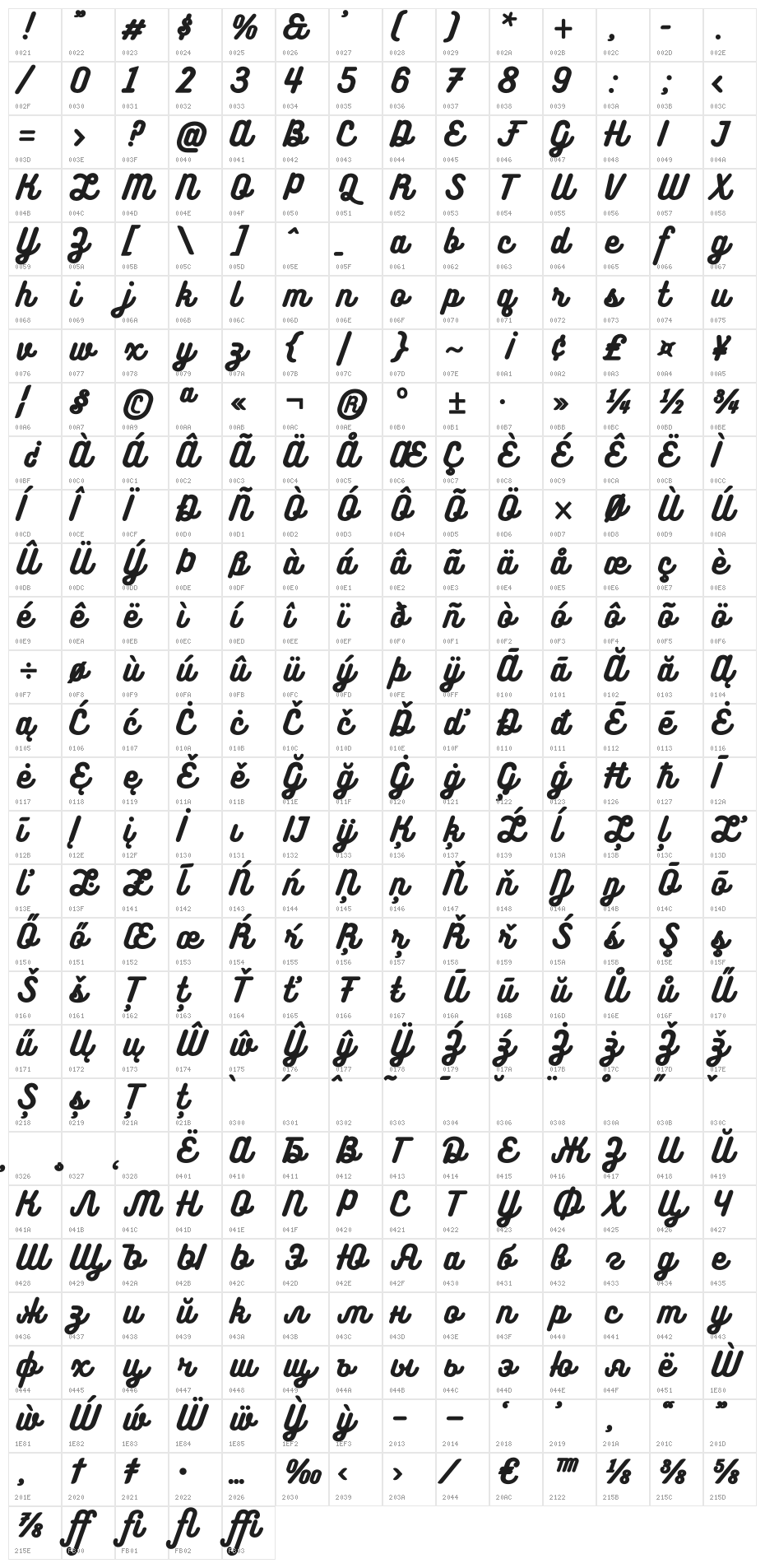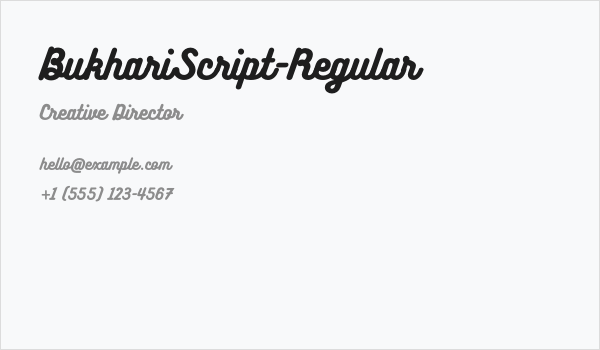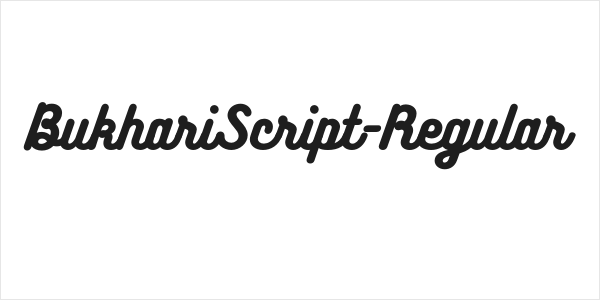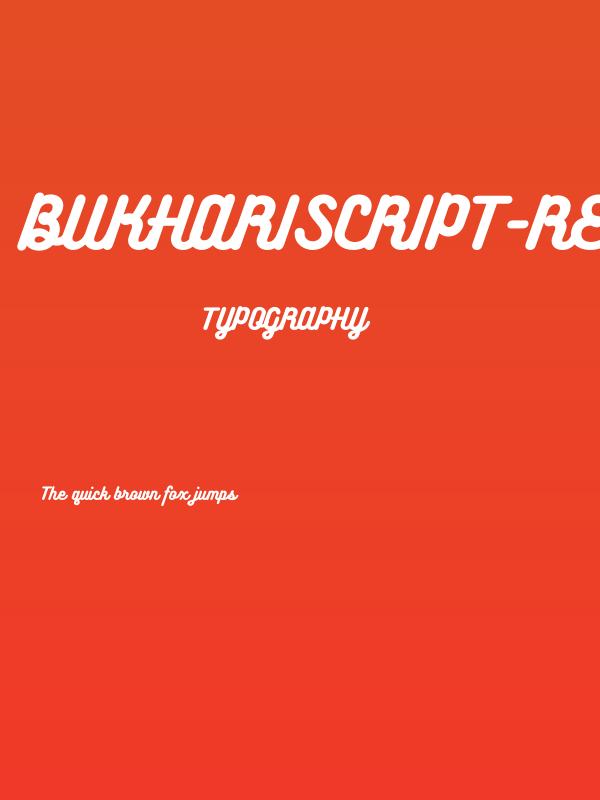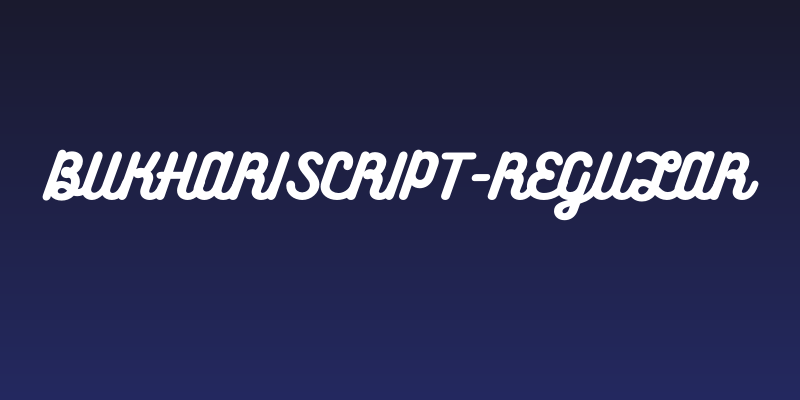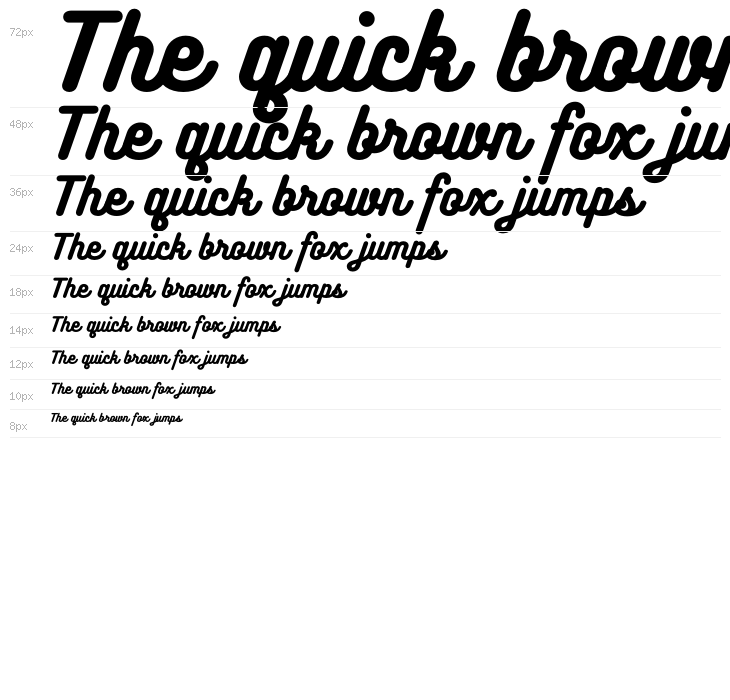
BukhariScript-Regular Font
BukhariScript-Regular Description
This font features a bold, flowing script style that mimics the fluidity of handwriting. The characters are interconnected, creating a seamless and elegant appearance. The strokes are thick and consistent, providing a strong visual impact. The uppercase letters maintain a uniform height, while the lowercase letters exhibit a slight slant, enhancing the cursive effect. Numerals and special characters are crafted with the same attention to detail, ensuring a cohesive look across all elements. The overall design is both playful and sophisticated, making it suitable for a variety of creative applications.